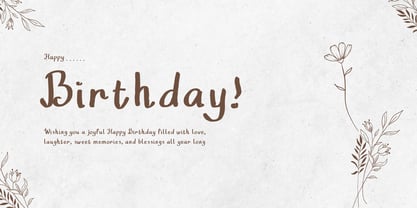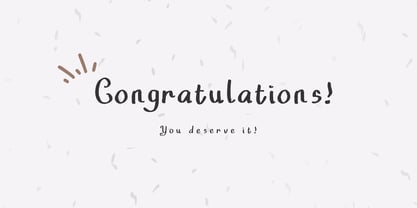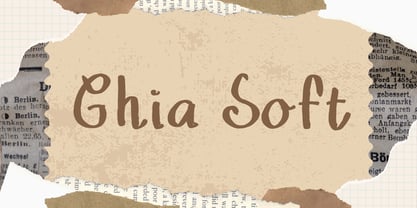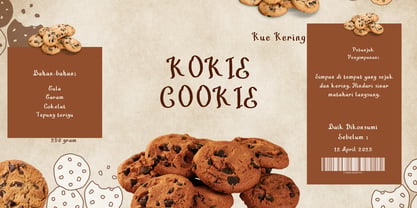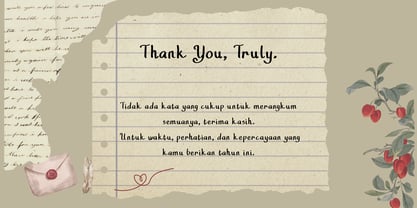
Ghia Soft
por Aisyah
La familia tipográfica Ghia Soft fue diseñada por Nur Aiysah Amalia y publicada por Aisyah. Ghia Soft contiene 1 estilos. Más información sobre esta familia
Unleash your creativity with Ghia Soft - a beautifully elegant and charmingly cute typeface. Perfect for a broad spectrum of crafts, business needs, and imaginative endeavors, Ghia Soft's blend of sophistication and adorableness adds a unique, delightful touch to your projects, separating your work from the norm. Discover a world of versatile design possibilities with the enchanting allure of Ghia Soft.
Diseñadores: Nur Aiysah Amalia
Fundición: Aisyah